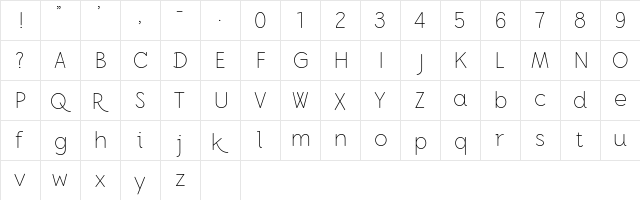
JonahAFYL Light Regular
JonahAFYL Light offers clean, dependable letterforms without strong stylistic allegiance, making it a practical choice for designers who need flexibility. The delicate stroke weight brings airiness and refinement to layouts.